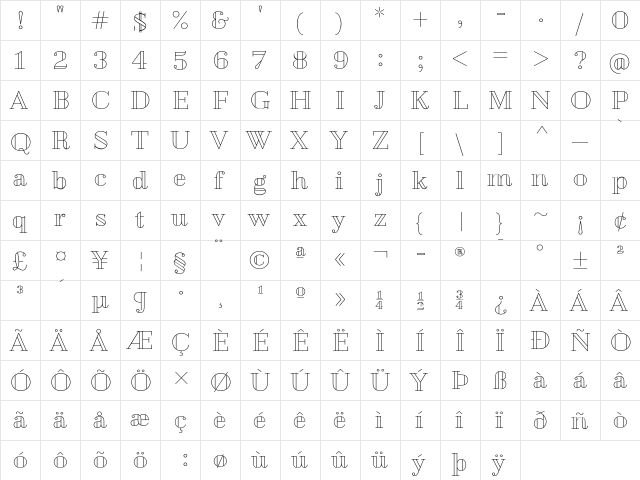
Geotica Three Open
| Foundry | Jos Buivenga |
| Designer | Jos Buivenga |
Design Context for Geotica Three Typeface
Geotica Three takes a measured approach to typography — its balanced proportions and neutral character make it a reliable workhorse for both digital and print work.
Dating back to 2010, this typeface is available in OpenType (OTF) format.